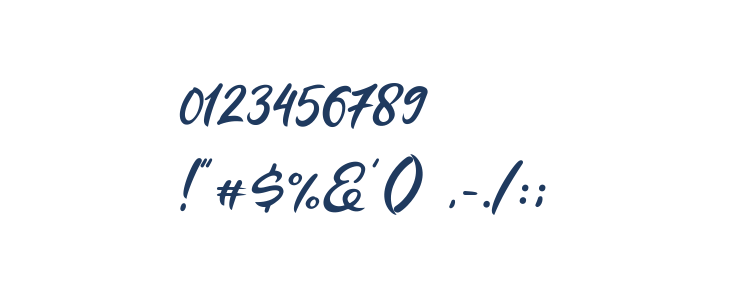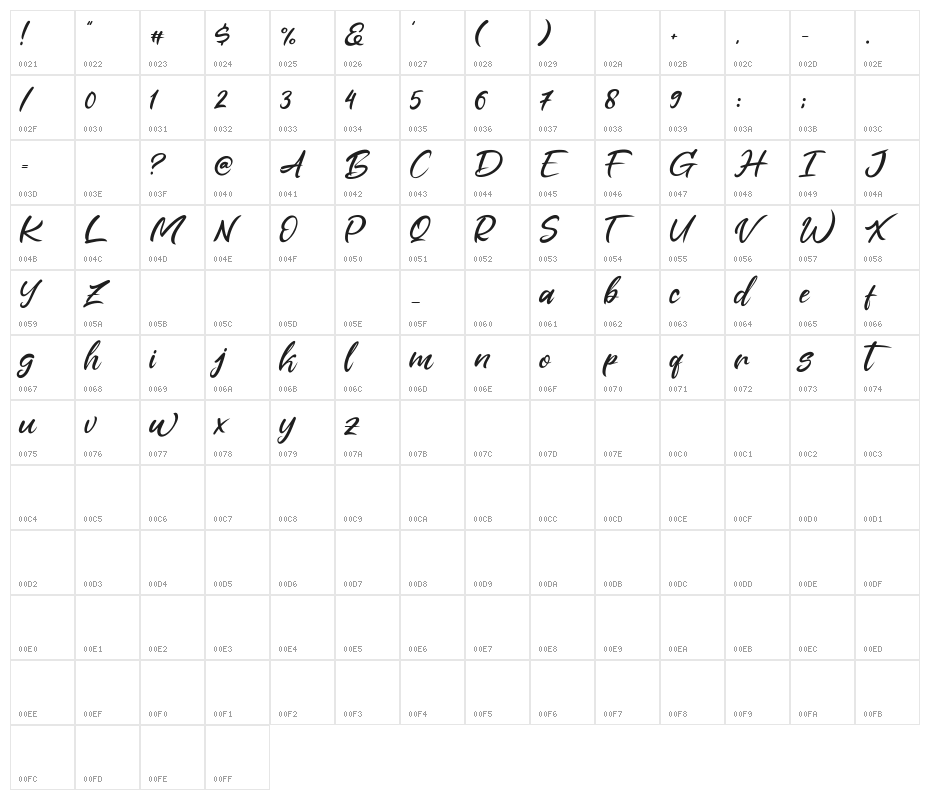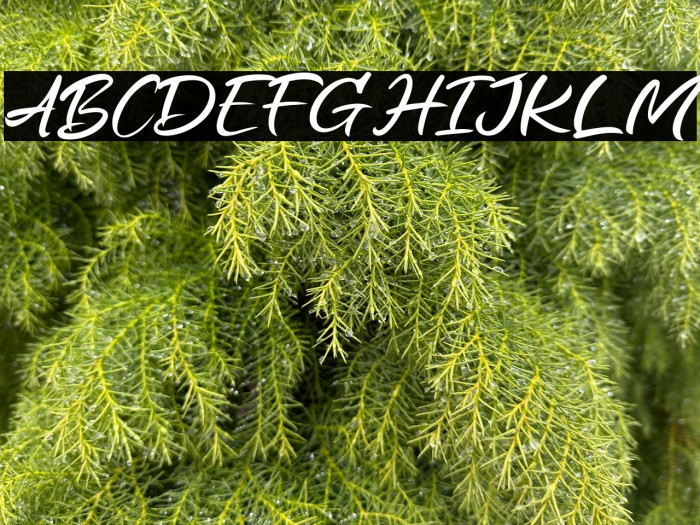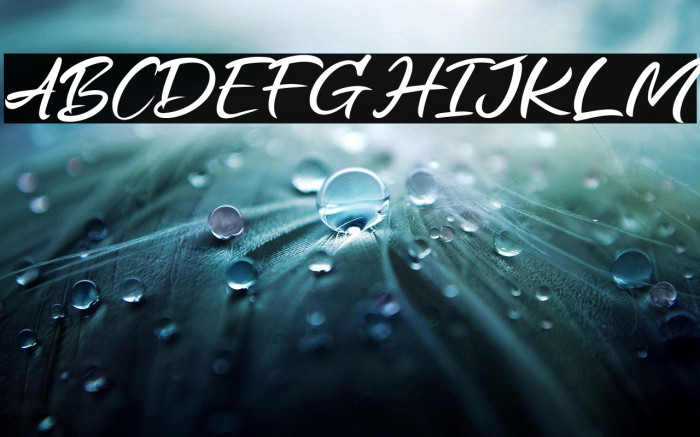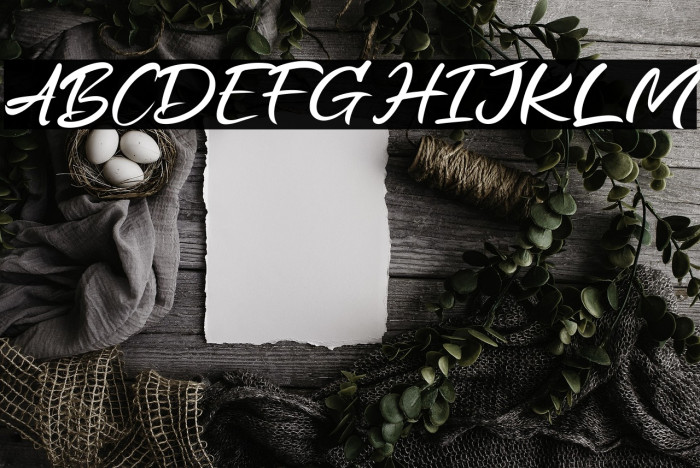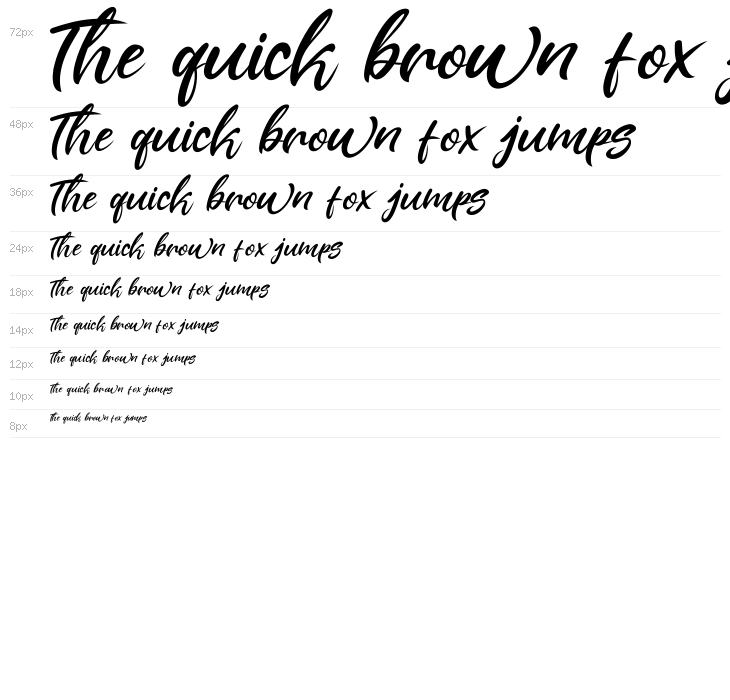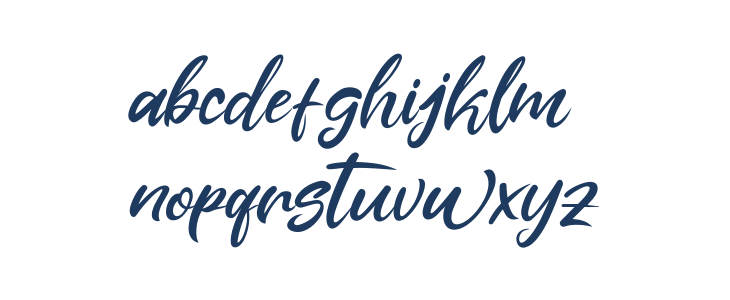
Alansky Font
Alansky Description
This font features a dynamic and flowing script style, characterized by its elegant and cursive letterforms. The uppercase letters are bold and sweeping, with a sense of movement that adds a lively and personal touch. The lowercase letters maintain a consistent flow, with smooth connections between characters, enhancing readability while preserving the artistic flair. The numbers are equally stylized, matching the overall aesthetic with their curvaceous forms. Special characters are designed with the same attention to detail, ensuring a cohesive look across all glyphs. This font is ideal for projects that require a personal, handwritten feel, such as invitations, greeting cards, and branding materials.
| Use Case | Logos, Headlines, Invitations |
| Proposed Projects | Ideal for invitations, greeting cards, branding, and any project needing a personal touch. |